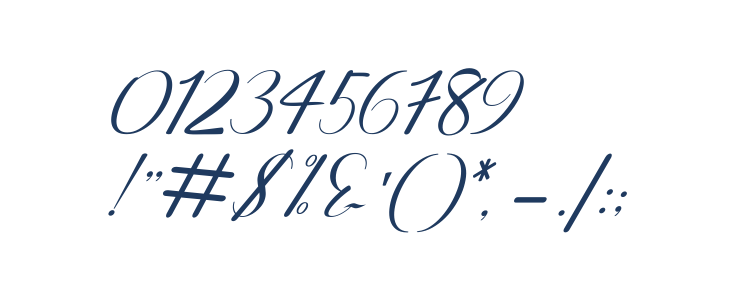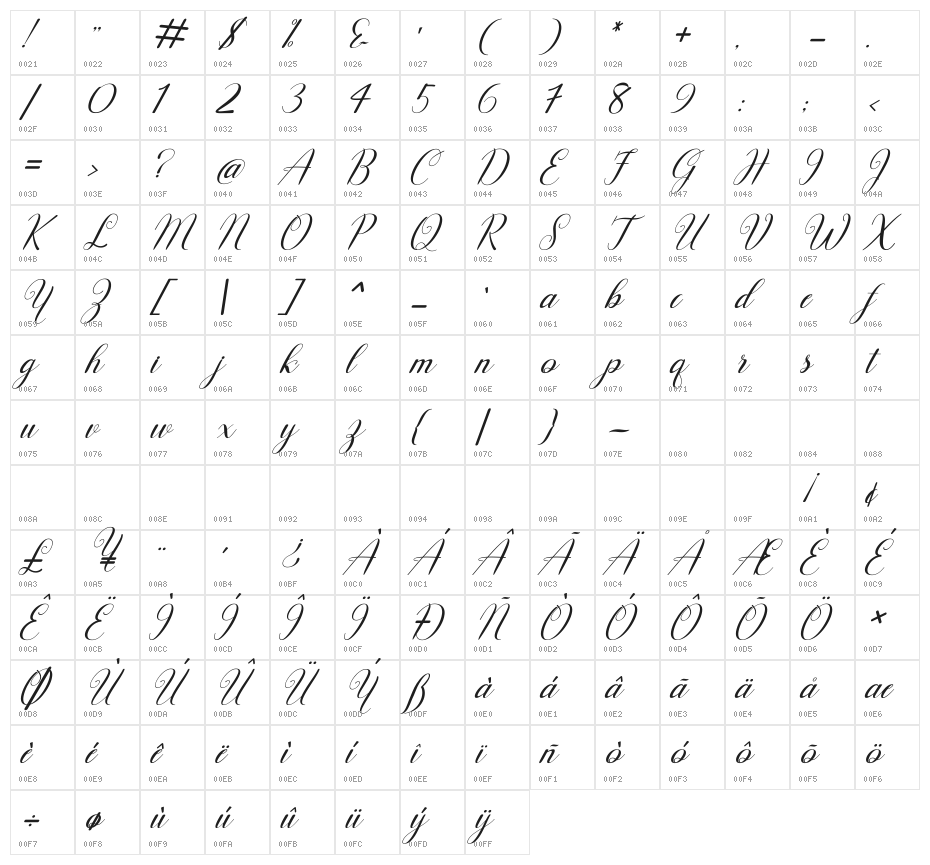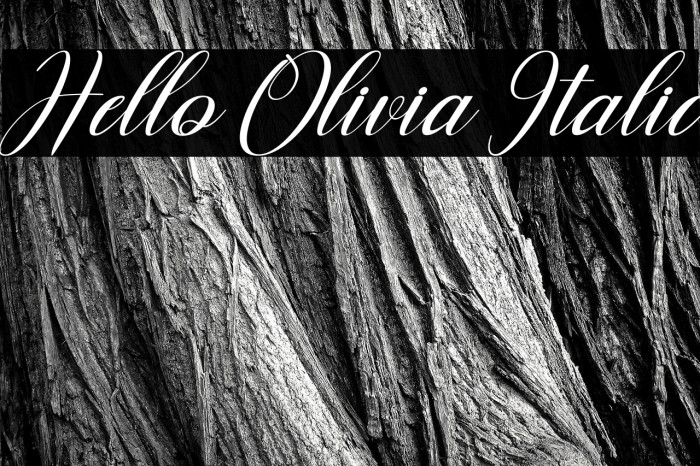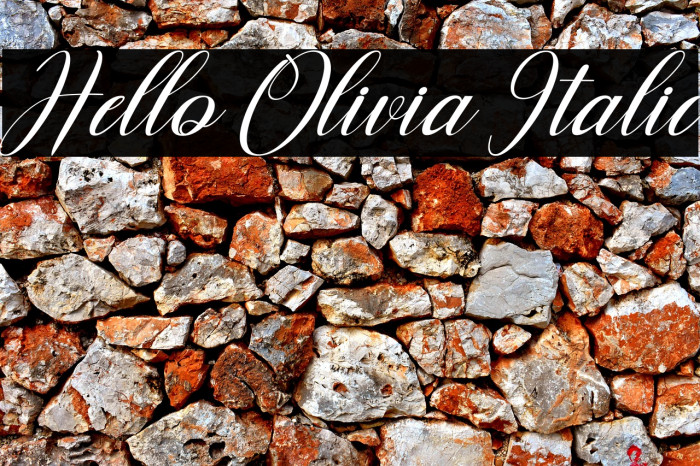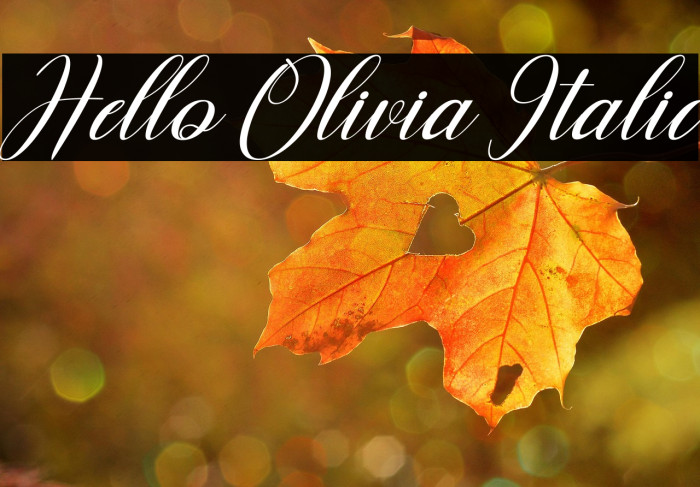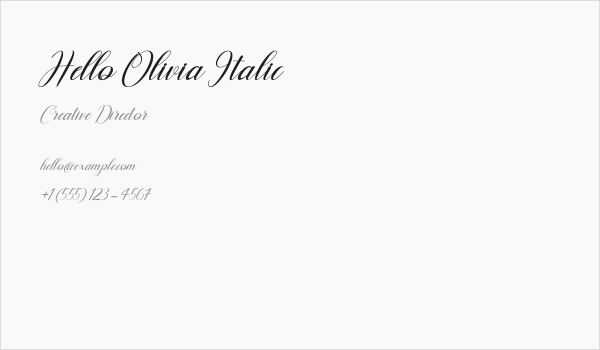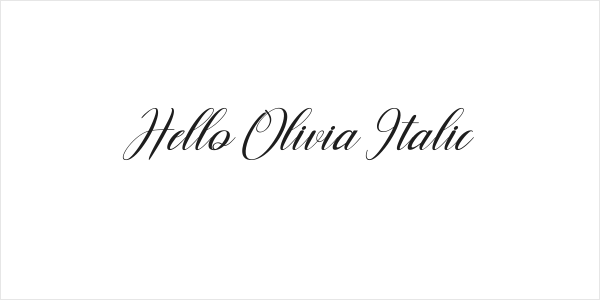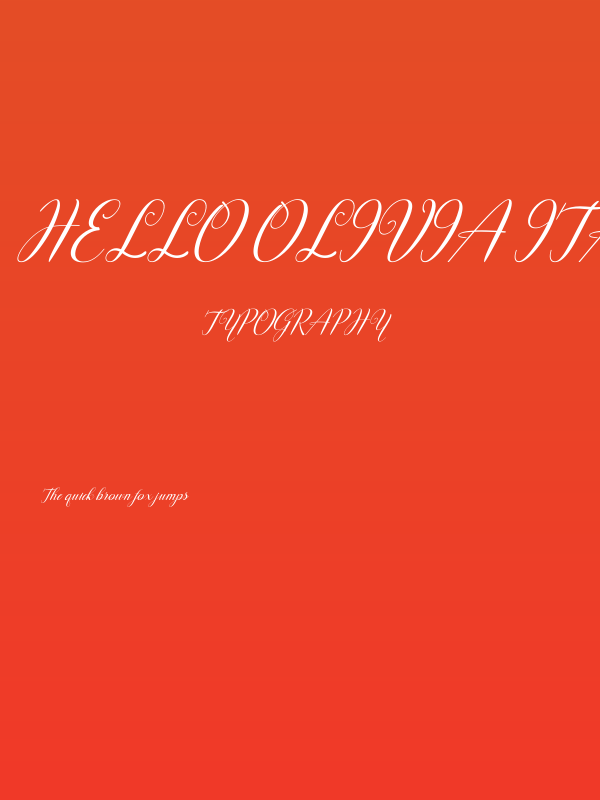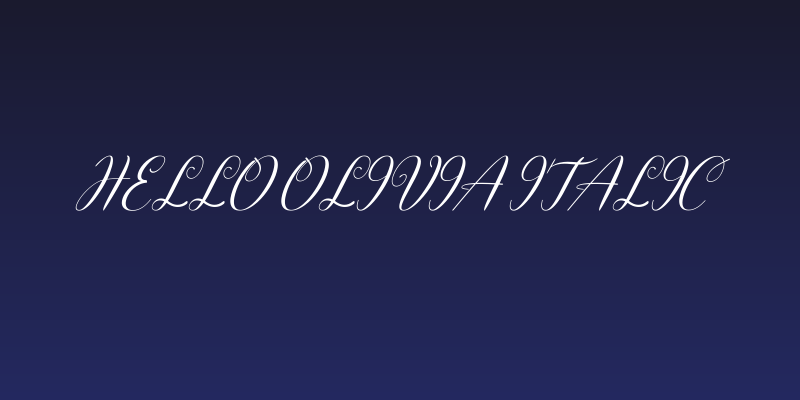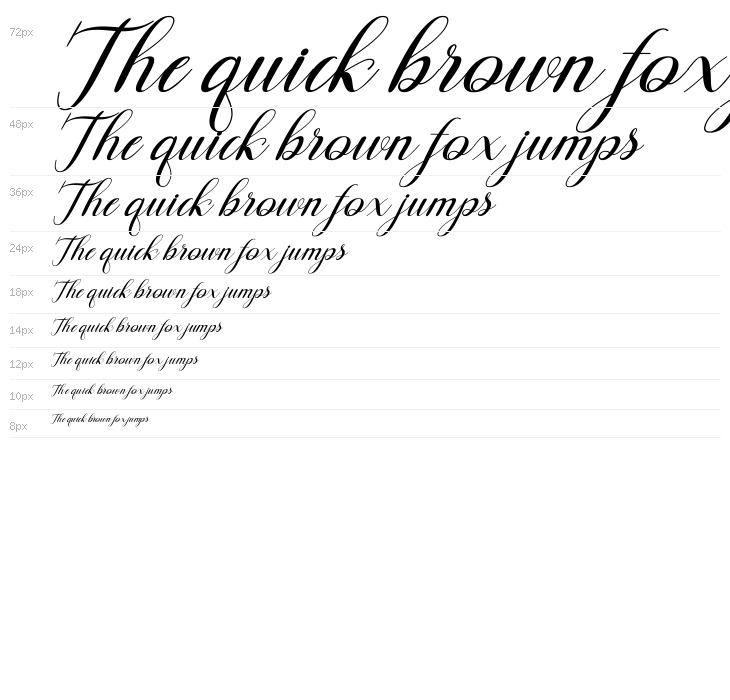
Hello Olivia Italic Font
Hello Olivia Italic Description
This elegant script font features flowing, cursive letters with a sophisticated and graceful appearance. The characters are connected, creating a seamless and fluid look that is both stylish and refined. The uppercase letters are tall and slender, while the lowercase letters maintain a consistent slant, enhancing the overall elegance. The numerals are distinct and maintain the same cursive style, adding to the font's cohesive design. Special characters are also included, matching the font's aesthetic with their intricate curves and loops. This font exudes a sense of luxury and is perfect for projects that require a touch of class and sophistication.